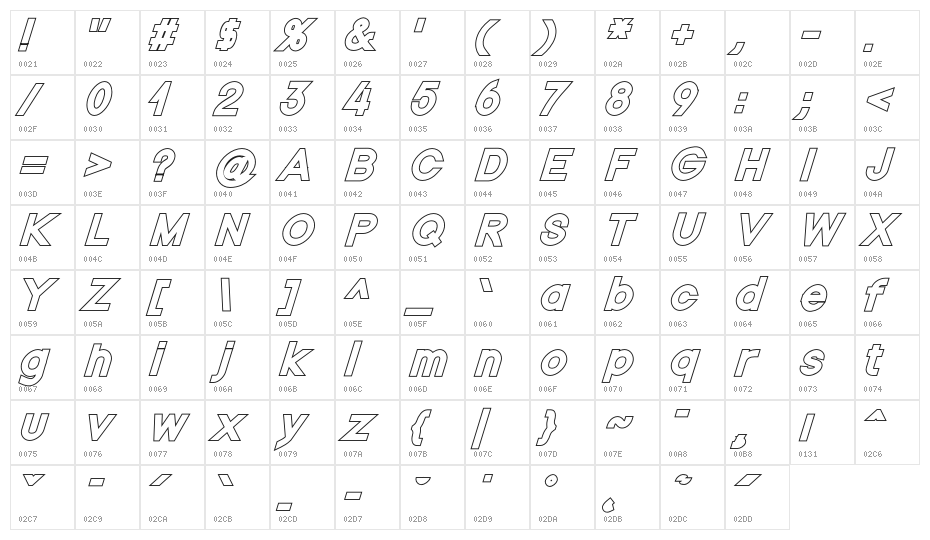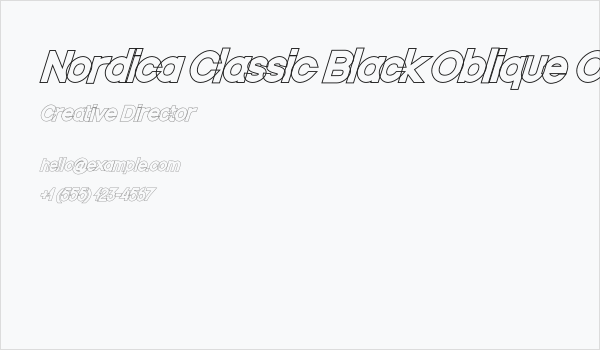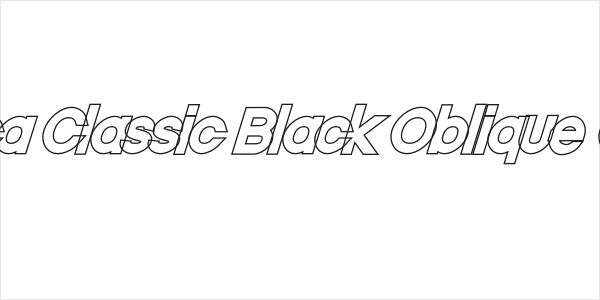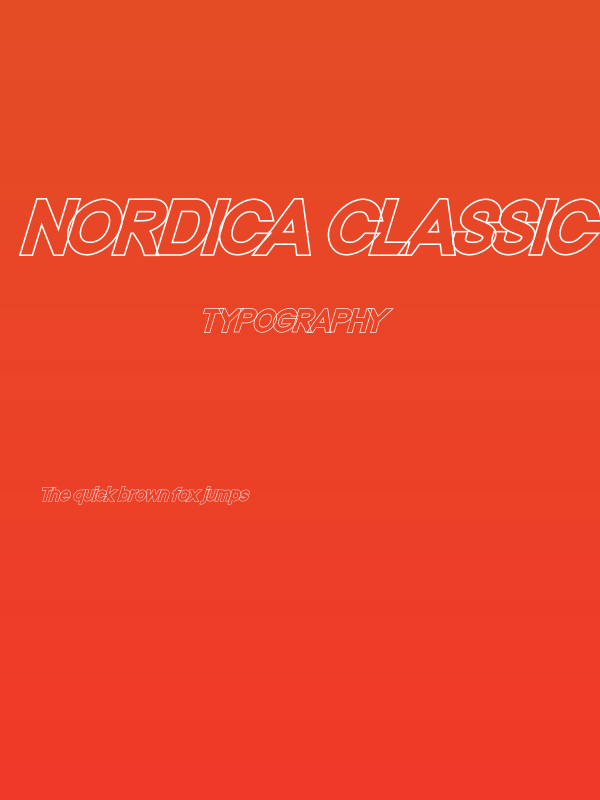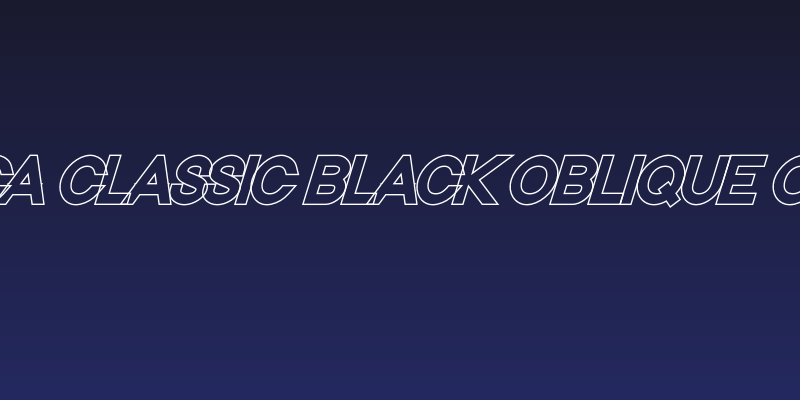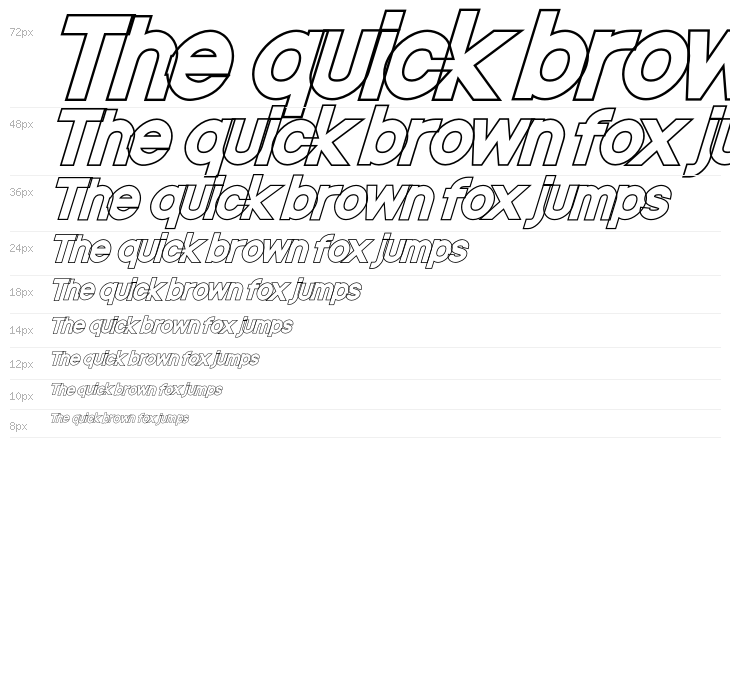
Nordica Classic Black Oblique Outline Font
Nordica Classic Black Oblique Outline Description
This font features a bold, oblique style with a distinct outline that gives it a striking and modern appearance. The uppercase and lowercase letters maintain a consistent slant, adding a dynamic and forward-moving feel. The numerals and special characters are designed to match the overall aesthetic, ensuring uniformity across all glyphs. The outlined nature of the characters provides a unique visual effect that can be both eye-catching and versatile, making it suitable for various design applications. The font's style is clean yet impactful, with a contemporary edge that can enhance any creative project.
| Proposed Projects | Ideal for headlines, posters, branding, and any design requiring a bold statement. |